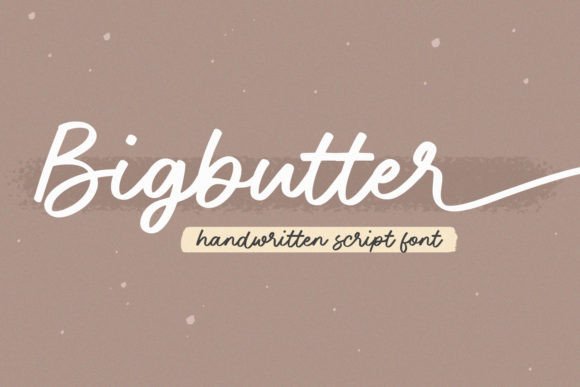
Step into a world of elegance and charm with the Bigbutter font, a masterpiece crafted by Timur type. This exquisite script font exudes a handwritten flair, adding a touch of personality and warmth to your designs. Immerse yourself in its graceful strokes and delicate curves, perfectly capturing the essence of handwritten beauty.
With Bigbutter, versatility knows no bounds. Whether you're designing wedding invitations that whisper romance, thank you cards that express heartfelt gratitude, or greeting cards that spread joy, this font will elevate your creations to new heights. Its timeless appeal lends itself effortlessly to logos, branding, and social media graphics, leaving a lasting impression on your audience.
Unleash your creativity and explore the endless possibilities. Bigbutter's PUA encoding grants you access to an array of glyphs and ligatures, allowing you to customize your designs with ease. Let your imagination soar as you craft unique and captivating visuals that resonate with your audience.
Make Bigbutter your font of choice and unlock a world of design possibilities. Its enchanting charm will transform your projects into works of art, leaving an indelible mark on the hearts of those who encounter them.